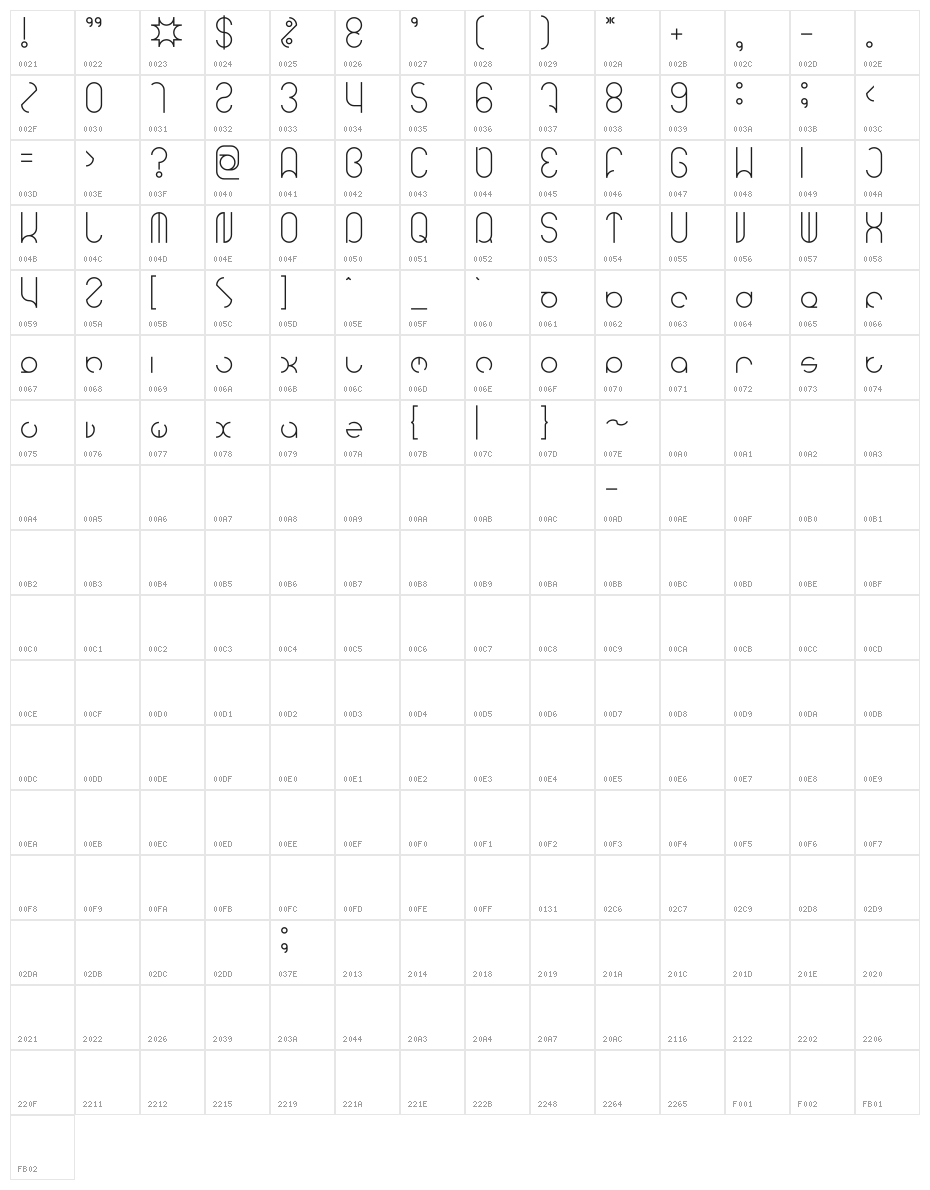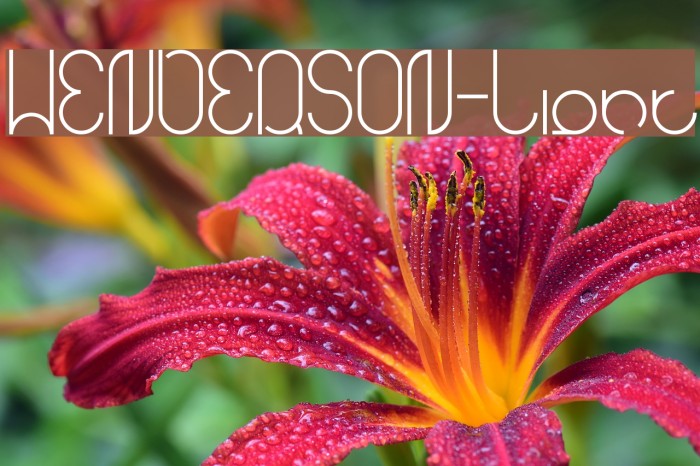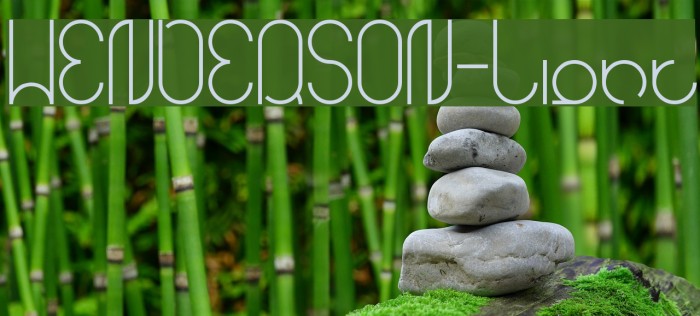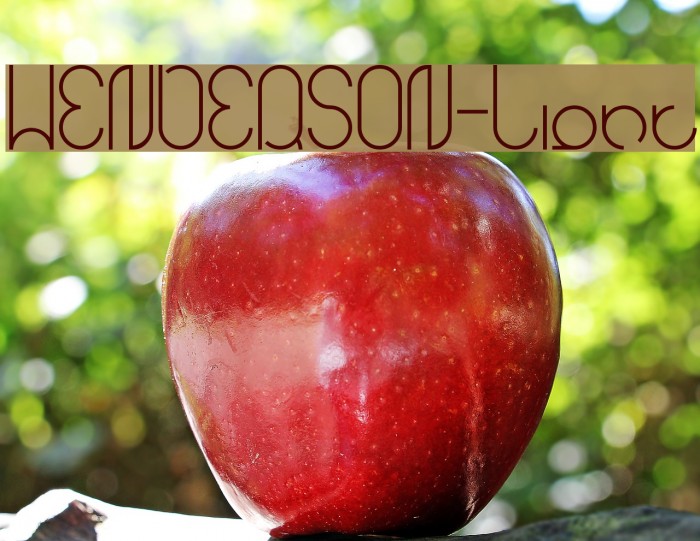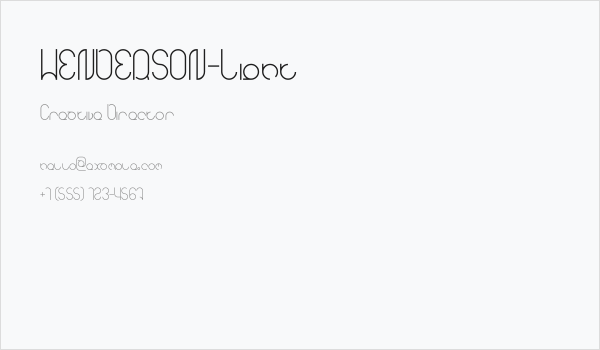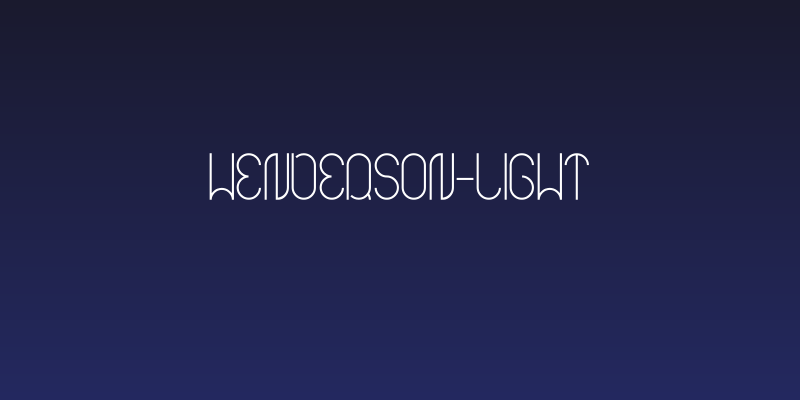
HENDERSON-Light Font
HENDERSON-Light Description
This font features a unique and modern design with a geometric and minimalist aesthetic. The characters are composed of clean, continuous lines that form rounded shapes, giving it a futuristic and sleek appearance. The uppercase and lowercase letters maintain a consistent style, with a focus on symmetry and balance. The numbers and special characters follow the same design principles, ensuring a cohesive look across all elements. This font's distinct style makes it stand out, with its thin strokes and open forms contributing to its light and airy feel.
| Use Case | Logos, Headlines, Branding |
| Proposed Projects | Ideal for branding, logos, and modern web design projects where a futuristic and sleek look is desired. |